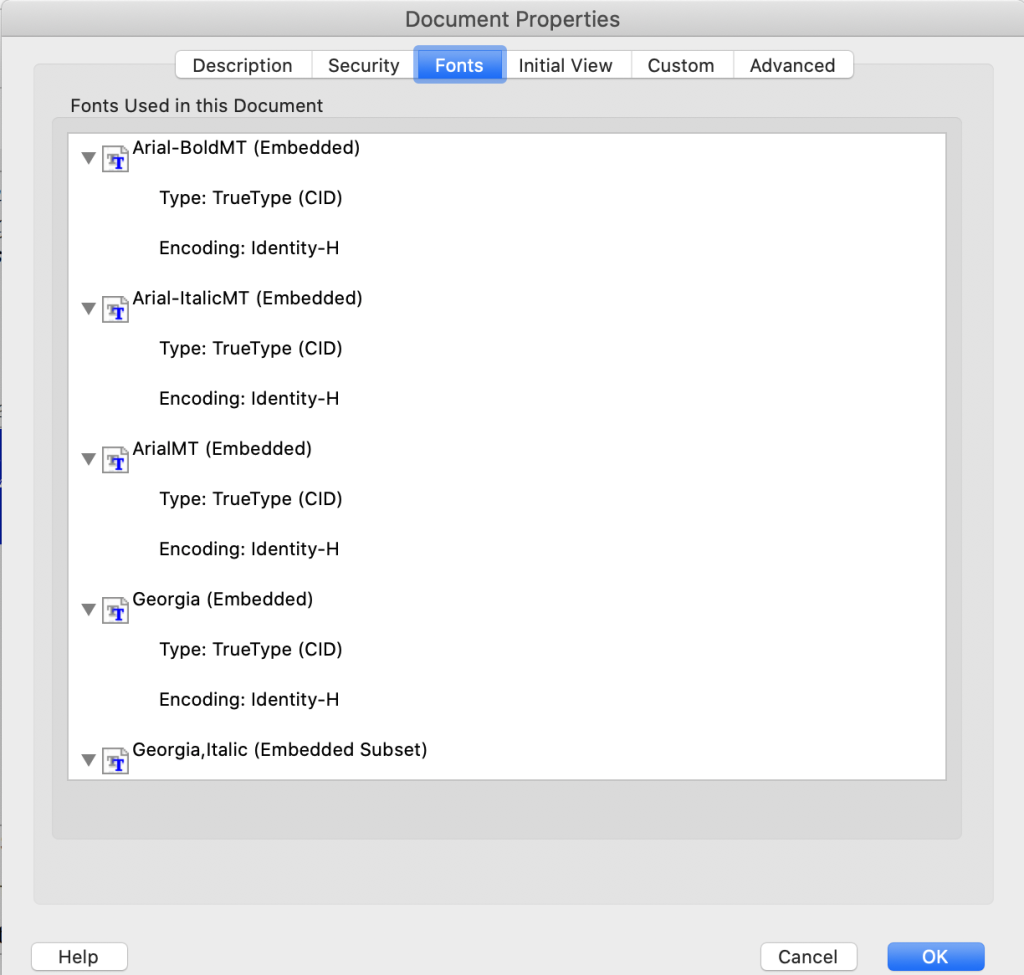
PDFs are the preferred file format for most, if not all, professional print providers. A PDF can be set up to give your printing company all of the pertinent information they need to effectively print your design project while avoiding problems and delays.
When sending documents for professional printing, ask yourself, “Are the fonts embedded in the PDF files?” If not, the original design’s visual coherence is at risk, as the printer’s system may convert missing fonts into less suitable alternatives.
Some of the most frequent issues print providers encounter with customer files are regarding fonts. Corrupted fonts, incompatible fonts, or fonts that are missing altogether are issues that can easily be avoided by embedding your fonts into your PDFs.
Understanding how to add fonts to PDF documents is crucial for maintaining the work you’ve put into your digital designs, ensuring that what you see on your screen is what gets printed on paper.
Why PDFs are the preferred file format for printing
When you save a file as a PDF, you are essentially packaging all of the components of your design into a single file. Think font information, color information, and any other settings you have used. This ensures that whoever is viewing your file on their own device is able to view it as you intended.
Why you need to embed fonts in PDF
Designers often use programs such as Adobe InDesign or Adobe Illustrator, both of which will create a reference to the fonts you use, but neither stores them in the file itself. When the software needs font information, it is able to locate it on your computer where it originally pulled it from. When that file is being read on a different computer, it won’t know where to locate that font information, if the computer even has it. When this happens, the font will be replaced with another, completely changing the look of your design.
To ensure the consistent appearance of your documents, having embedded fonts in PDF files is a standard practice that preserves the layout and style, regardless of the device or platform on which it’s viewed. The process of embedding fonts in PDF documents involves including the actual font files within the PDF, ensuring that your design appears the same way it was created, even when opened on a reader that doesn’t have the used fonts installed.
When you create a PDF version of your design file, a copy of each necessary font is added to the PDF file itself. This process is known as embedding. Regardless of where this PDF is opened, whether it is on your computer, a friend’s computer, or your print provider’s computer, all of the correct fonts will be there and will render properly. By embedding your fonts in your PDF, you will avoid any issues regarding fonts that may alter your design’s look.
Embedding fonts secure the format of your file. When PDFs do not have the required font added, it will change the font to what it feels is a similar font. Changing fonts can drastically change the layout of the file.
PDFs were created to be sent around and used universally. However if a colleague needs to edit the PDF you emailed them but doesn’t have the specific font downloaded to their device, that font will change. Embedding fonts will minimize the issue of fonts changing from coworker to coworker.
Best PDF Fonts
Before we explore the how-to of PDF embed fonts, it’s essential to understand which fonts are optimal for your documents.
The perfect PDF fonts combine readability and aesthetic appeal while being compatible across various systems. Here’s a brief list of some of the best fonts for embedding in PDF files:
Helvetica: Famous for its legibility and sleek, modern look, Helvetica ensures compatibility and is a favorite in professional documents.
Times New Roman: A timeless choice known for its superior readability, Times New Roman is a standard font installed on most systems.
Arial: A sans-serif font, Arial guarantees excellent legibility and straightforwardness, making your documents appear sharp and professional.
Calibri: A standard font in numerous applications, Calibri is user-friendly and performs well on screen and in print, making it a versatile choice for PDFs.